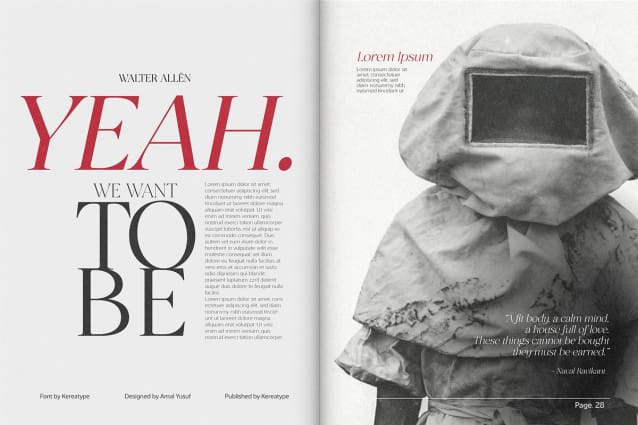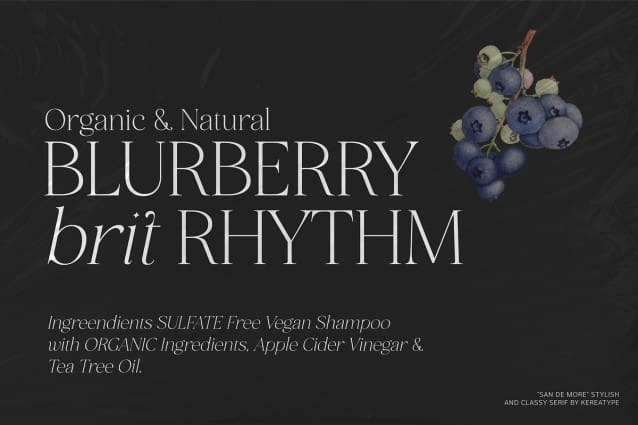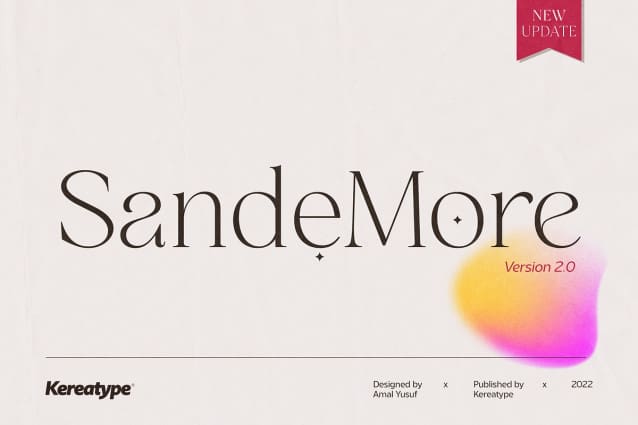
San De More Font Family
San De More Font is a Stylish Serif font, infused with the hype of summer themes that inspire us to create a product aiding you in choosing fonts for your creations. As seen in the preview above, it showcases how the fonts can seamlessly integrate into your design.
Created in 5 weights with italic styles, San de More offers versatility, ensuring you find the perfect fit for your creative designs. Mix and match without worrying about design clashes.